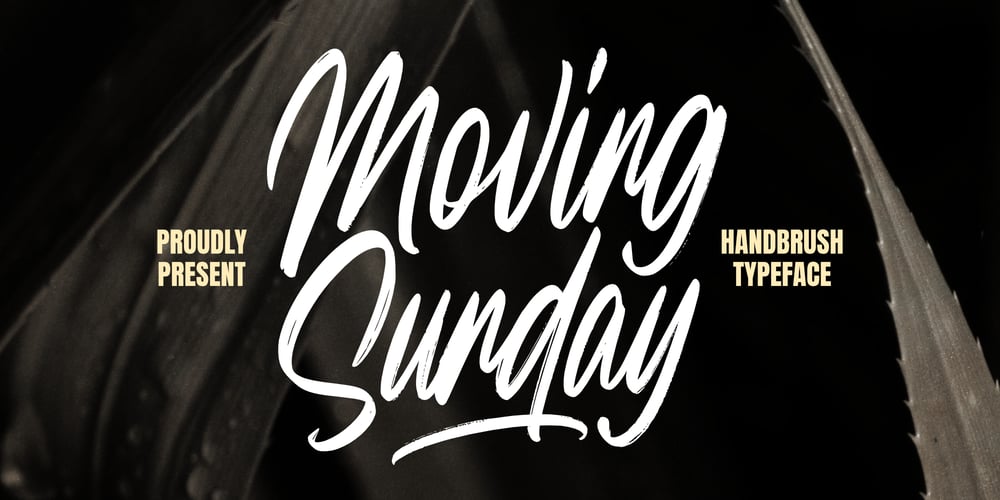
Moving Sunday Font Family was designed by Ardian Nuvianto and published by Ardian Nuvianto. Moving Sunday contains 1 styles and family package options. Immerse your designs with the invigorating charm of Moving Sunday, a wonderfully lively handbrush handwritten font that mirrors the free-spirited essence of easy relaxed days. Its naturally etched strokes and enthusiastically shaped letters introduce an unearthly organic feel to your projects, all wrapped up in warmth and affection. Drawing inspiration from carefree moments and the blissful ambiance of lazy Sundays, the Moving Sunday font weaves an unpretentious air of authenticity and tranquillity into your designs. It sports delightfully irregular lines and distinctive textures that present a vibrant, animated visual experience, exuding an unbound sense of freedom and uniqueness.Perfectly suited for all – from designing striking posters, bespoke apparel or captivating social media graphics, Moving Sunday dutifully imparts a delightful degree of character and personality. This font invites you to savor the allure of imperfection, celebrating the raw beauty handmade creations embody. The letters give off an impression of effortless brush strokes, detailing the spur of a moment vibe.Unleash the breezy, nonchalant spirit of Moving Sunday font, and allow your designs to burst into life, exuding buoyant charm and engaging appeal. The Moving Sunday font is not just a font; it’s a catalyst to breathe life and playfulness into your every design.